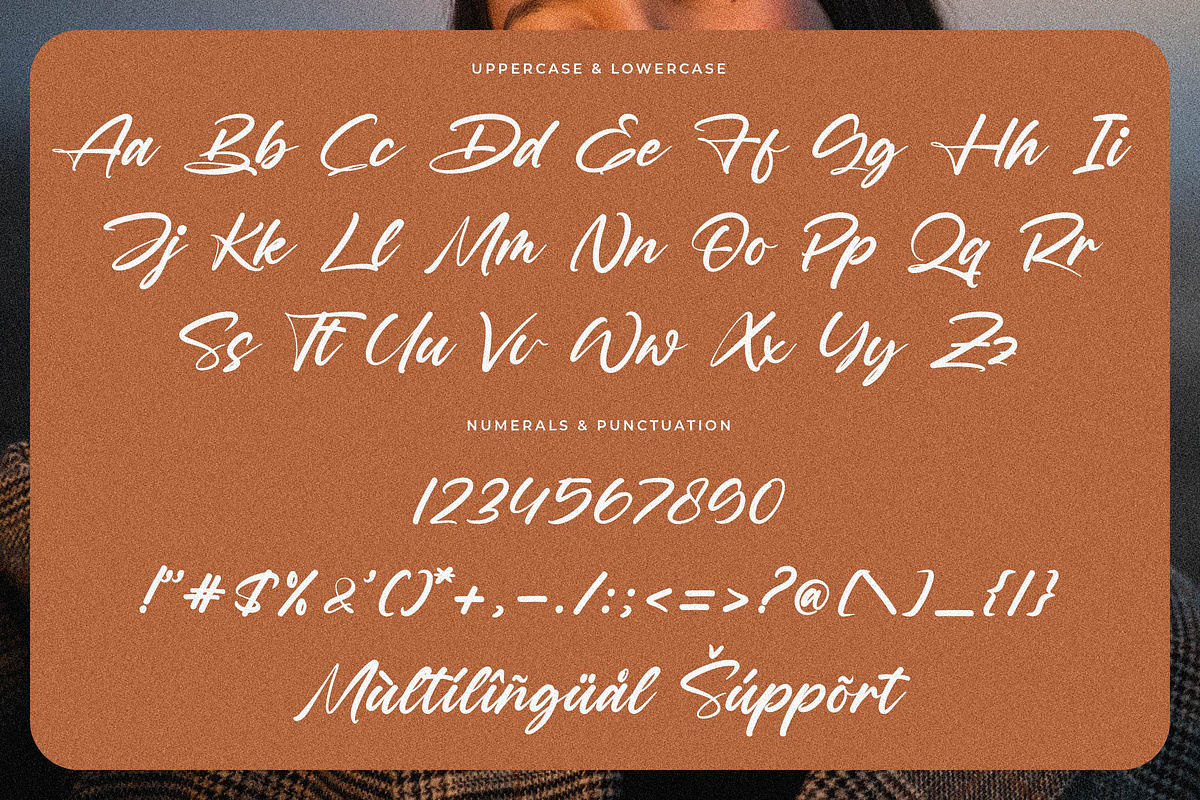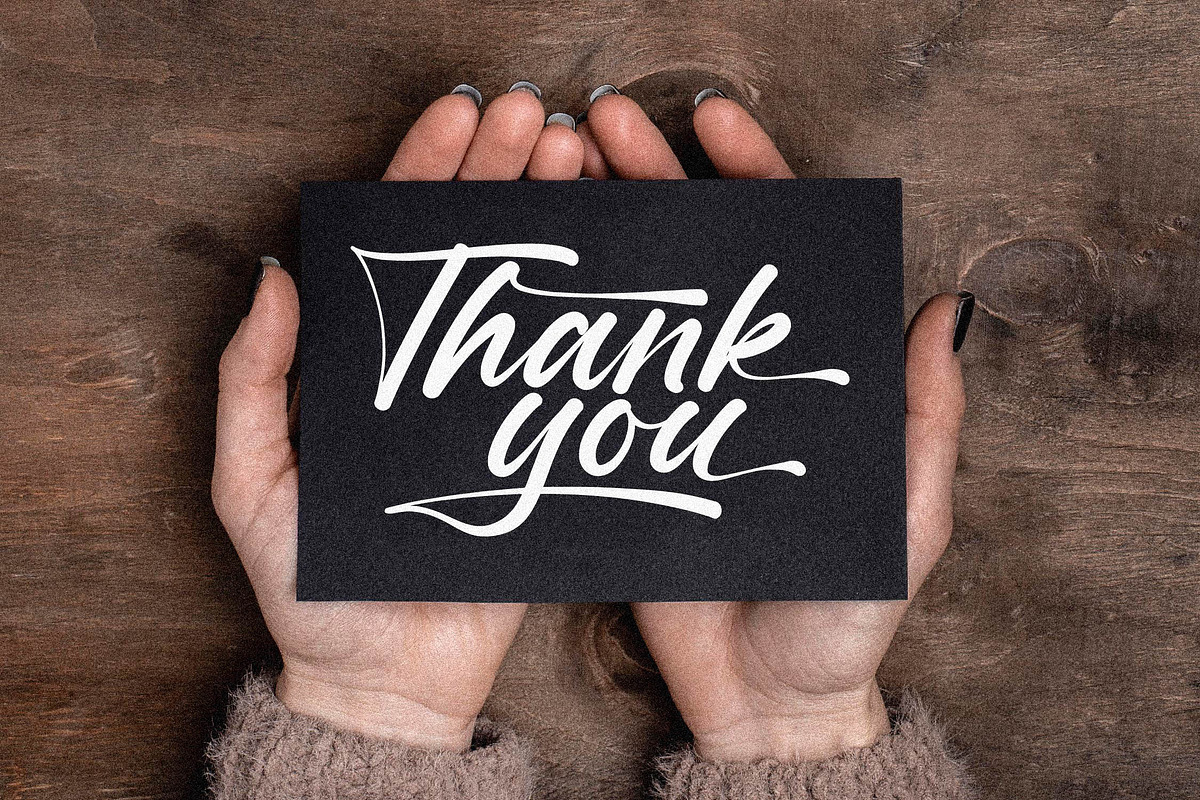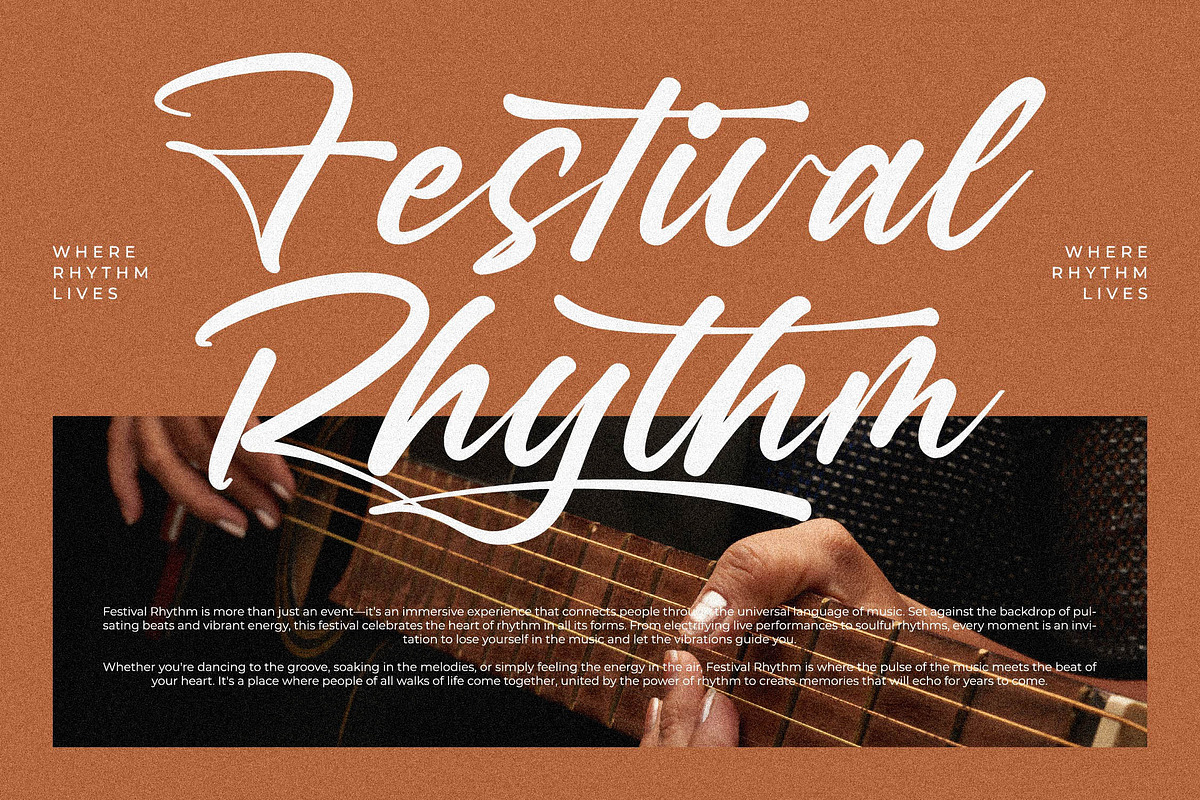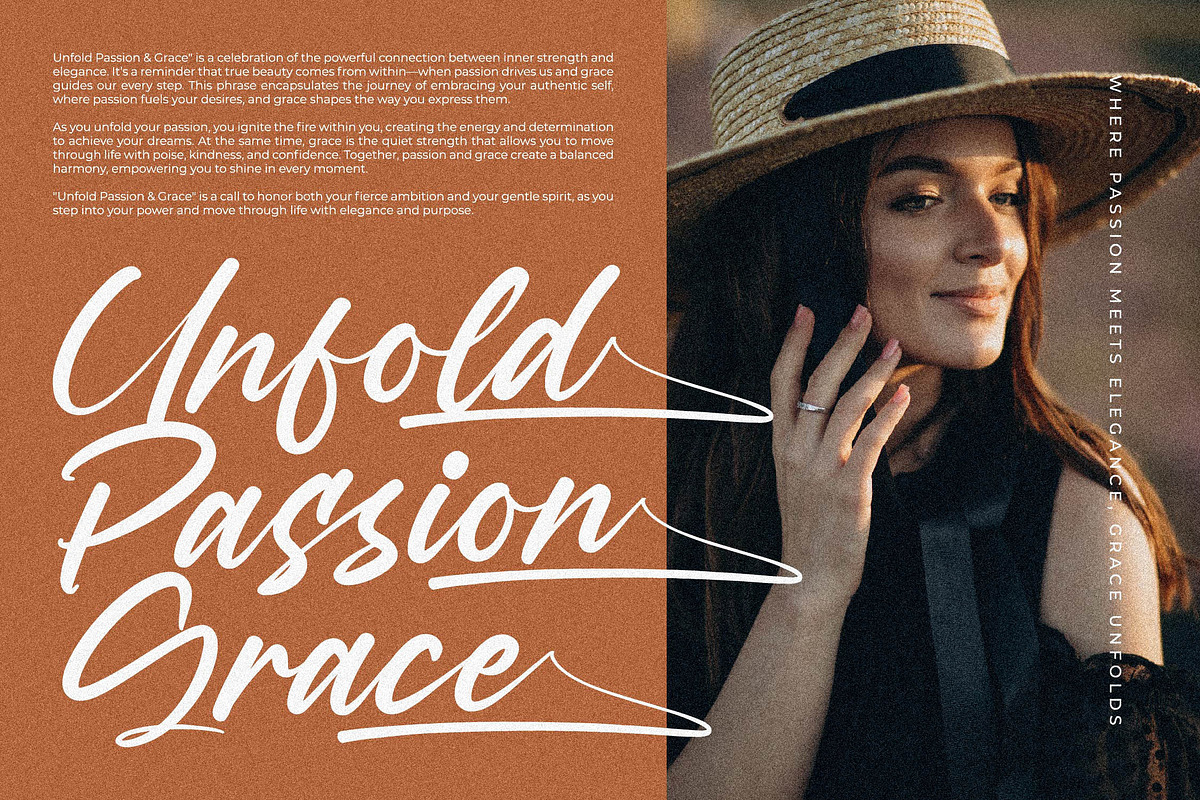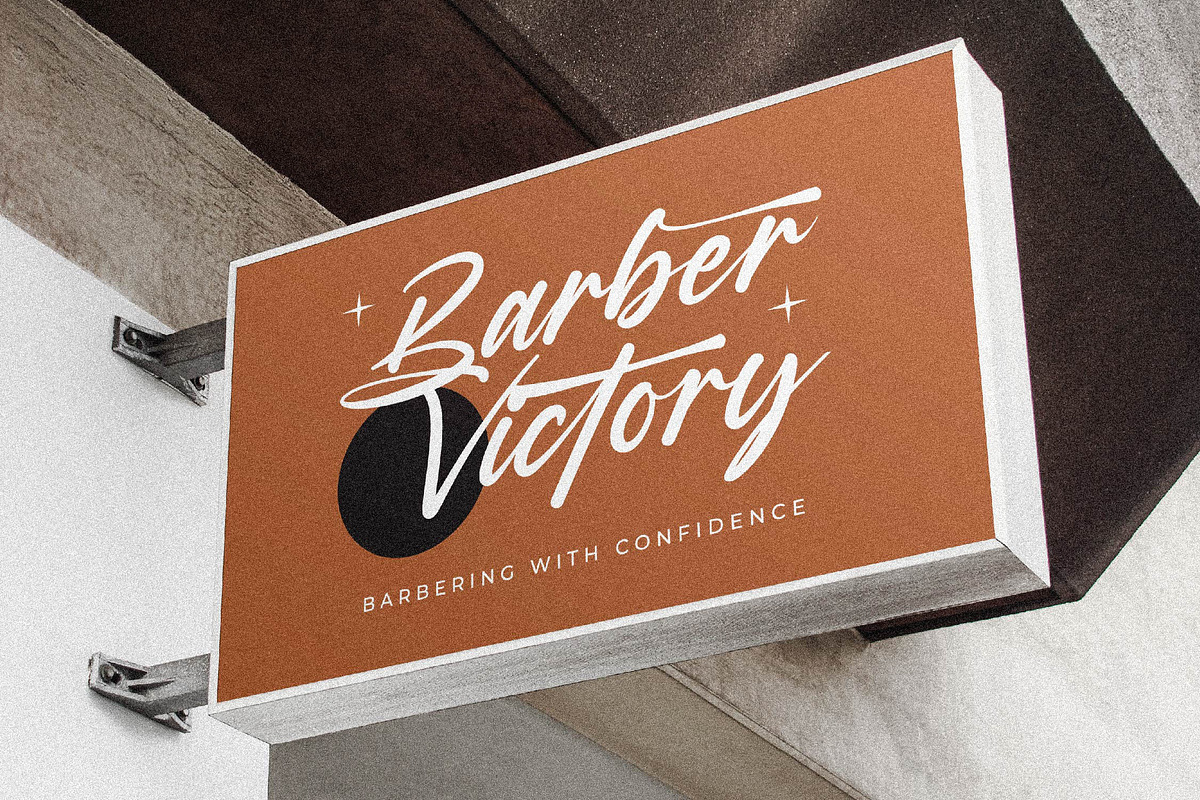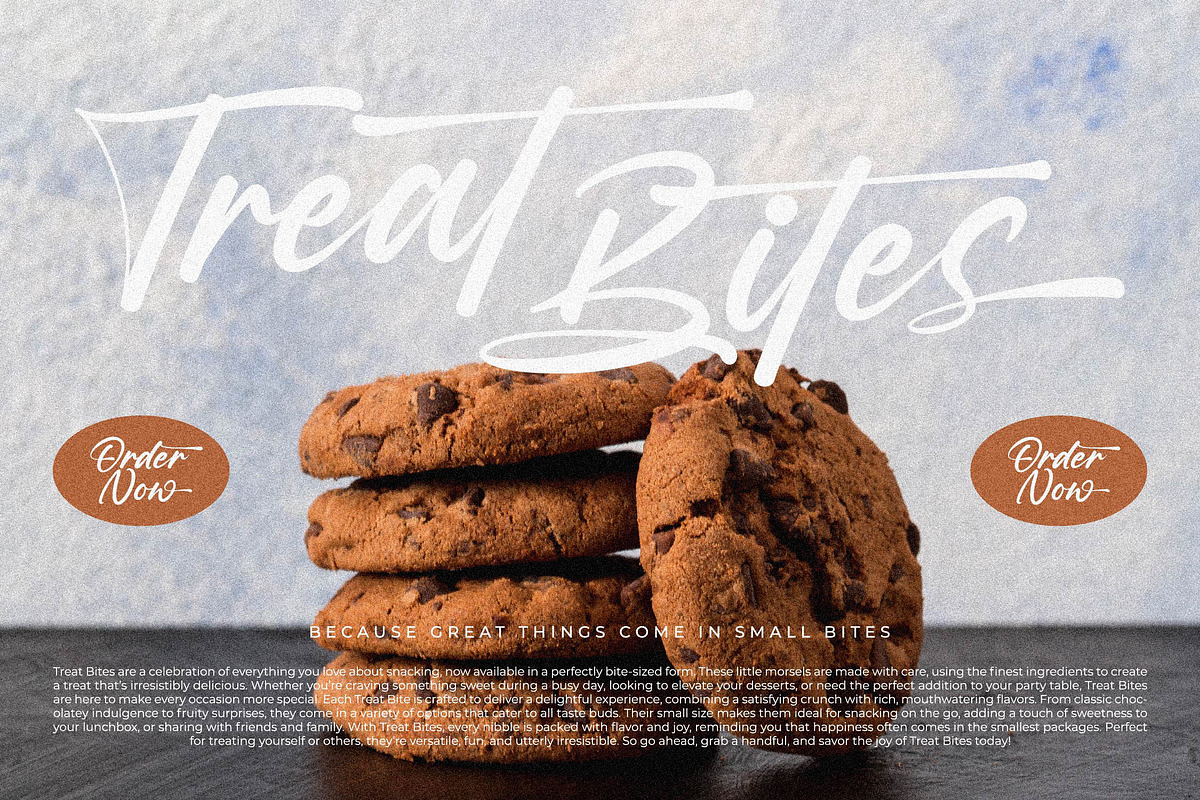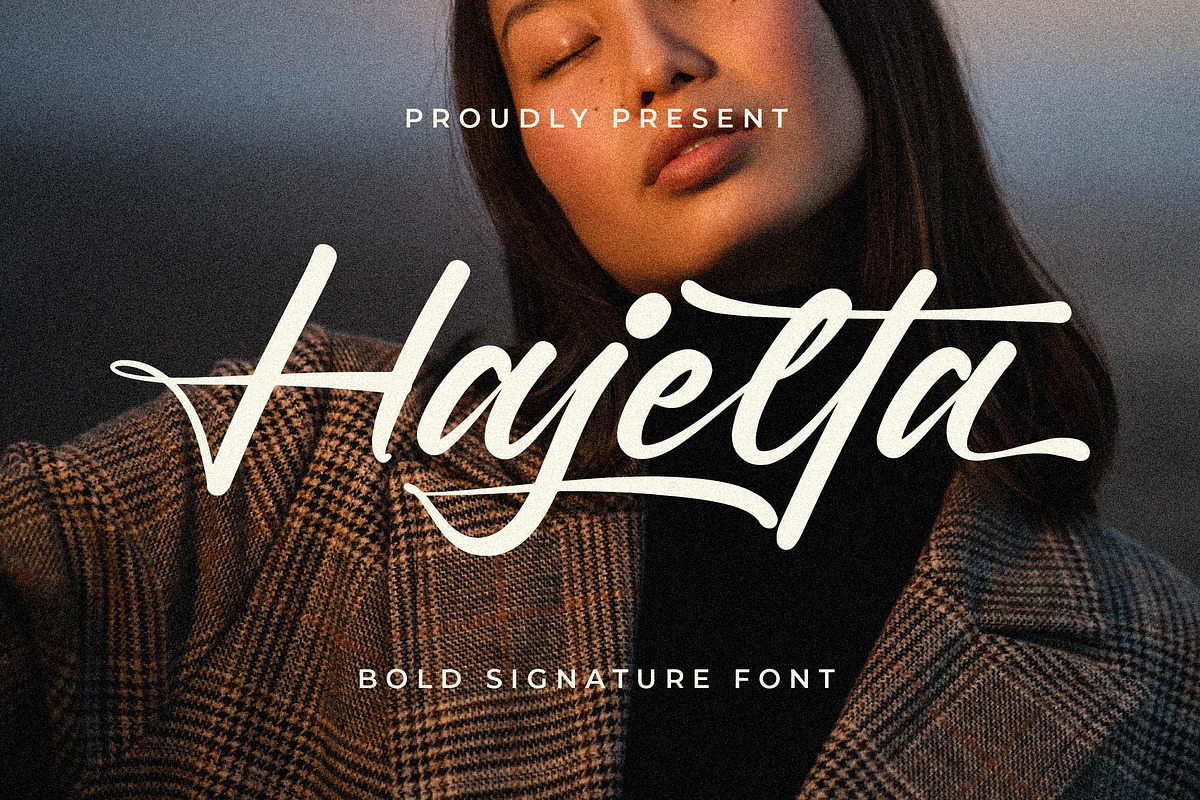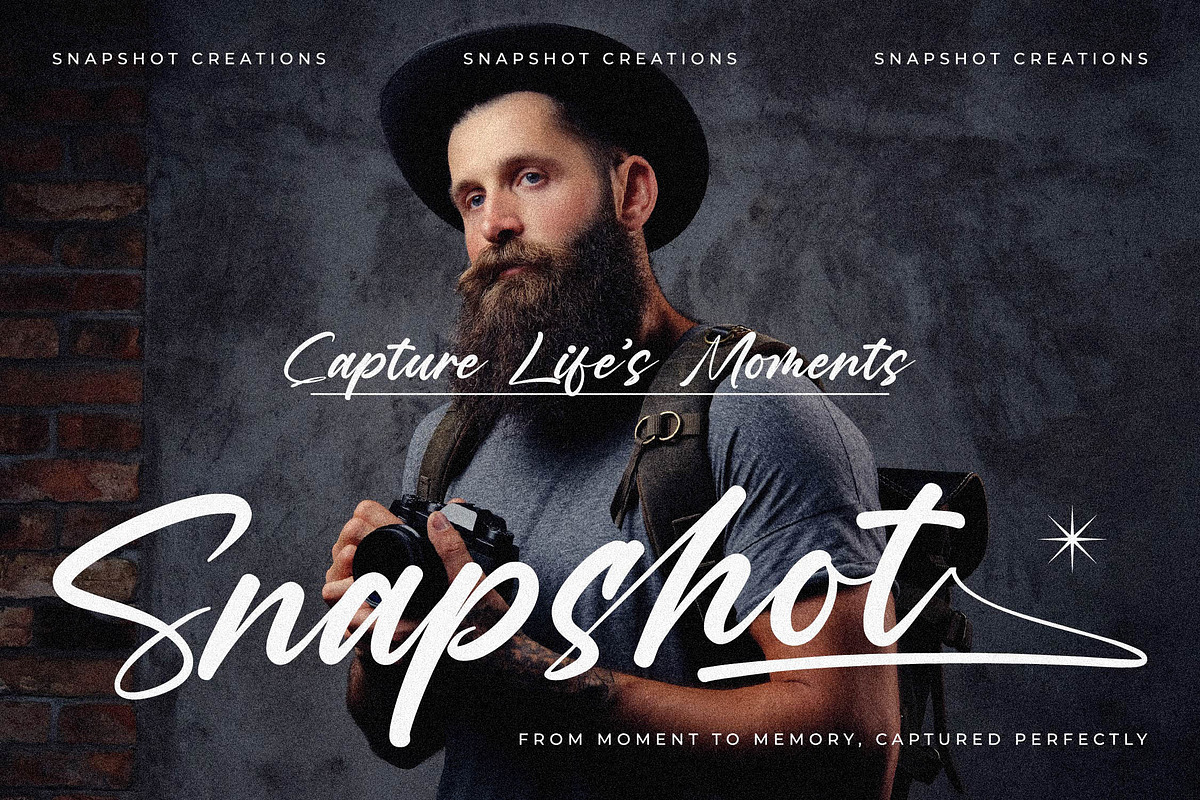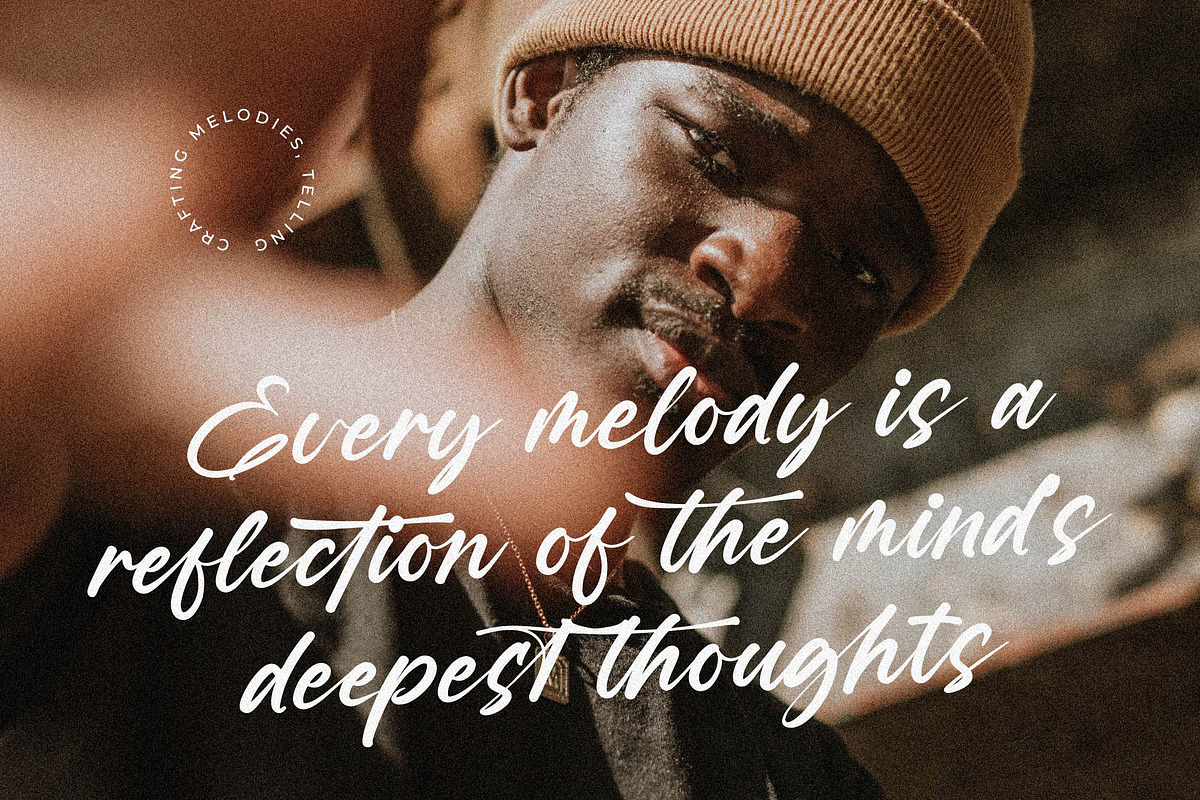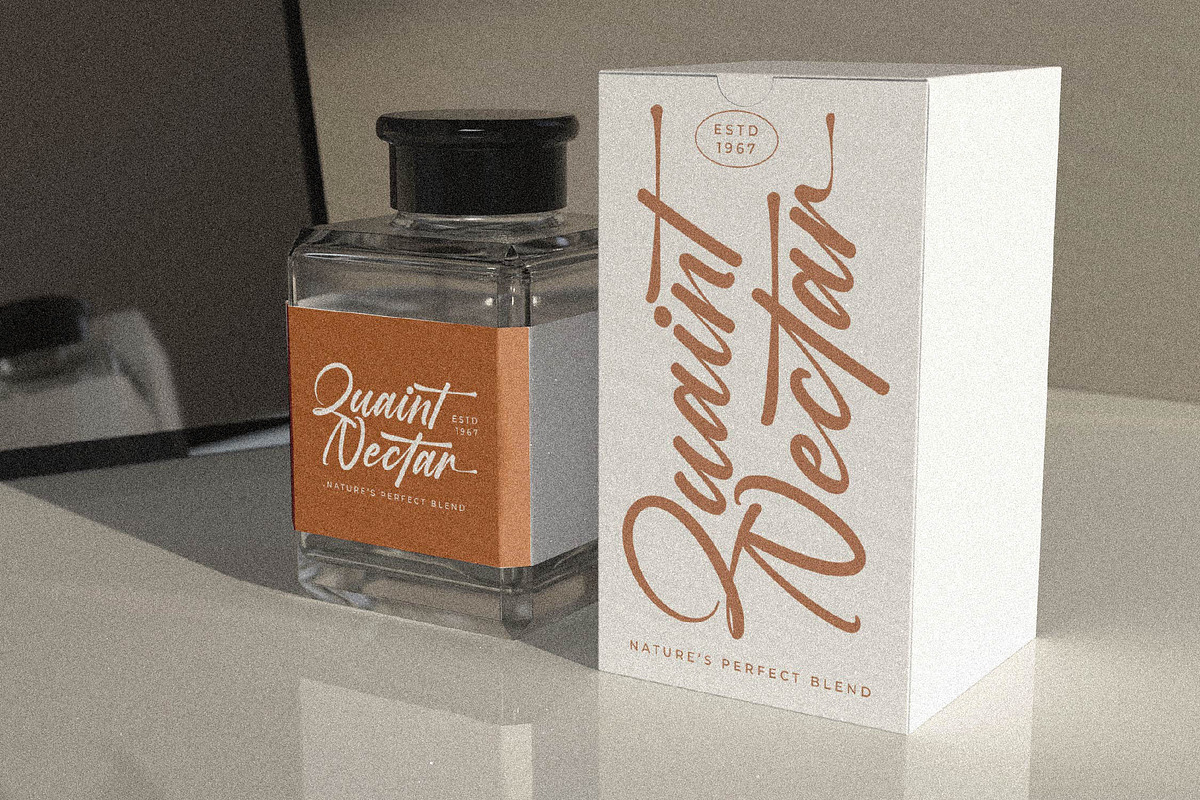
Hajelta - Bold Signature
Hajelta is a bold signature style font that blends strength with sophistication, offering a modern and dynamic feel. With its striking, confident strokes, this font is perfect for logotypes, branding, invitations, and a variety of other design applications. Hajelta's unique design captures the essence of a handwritten signature, making it both personal and powerful, while its bold structure ensures high visibility and impact. Whether you're creating a memorable brand identity, designing elegant invitations, or crafting standout visuals for any project, Hajelta brings a bold yet refined character to your designs.